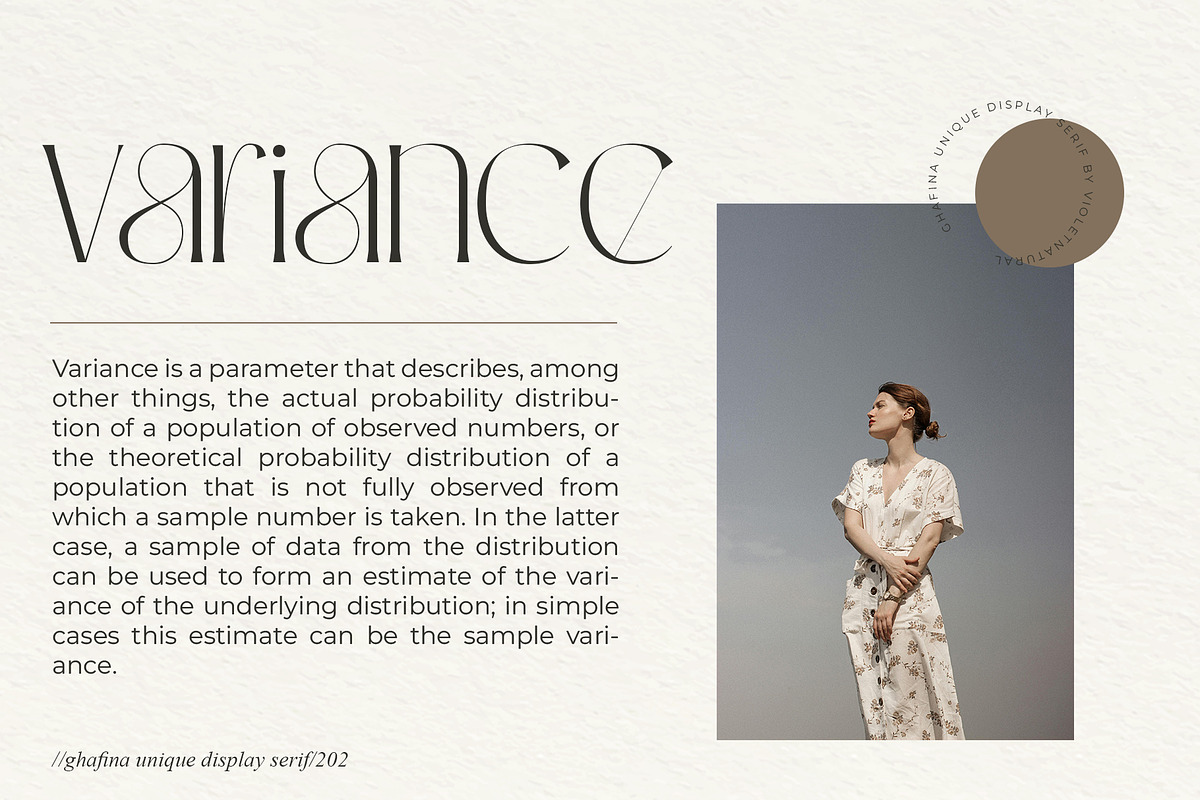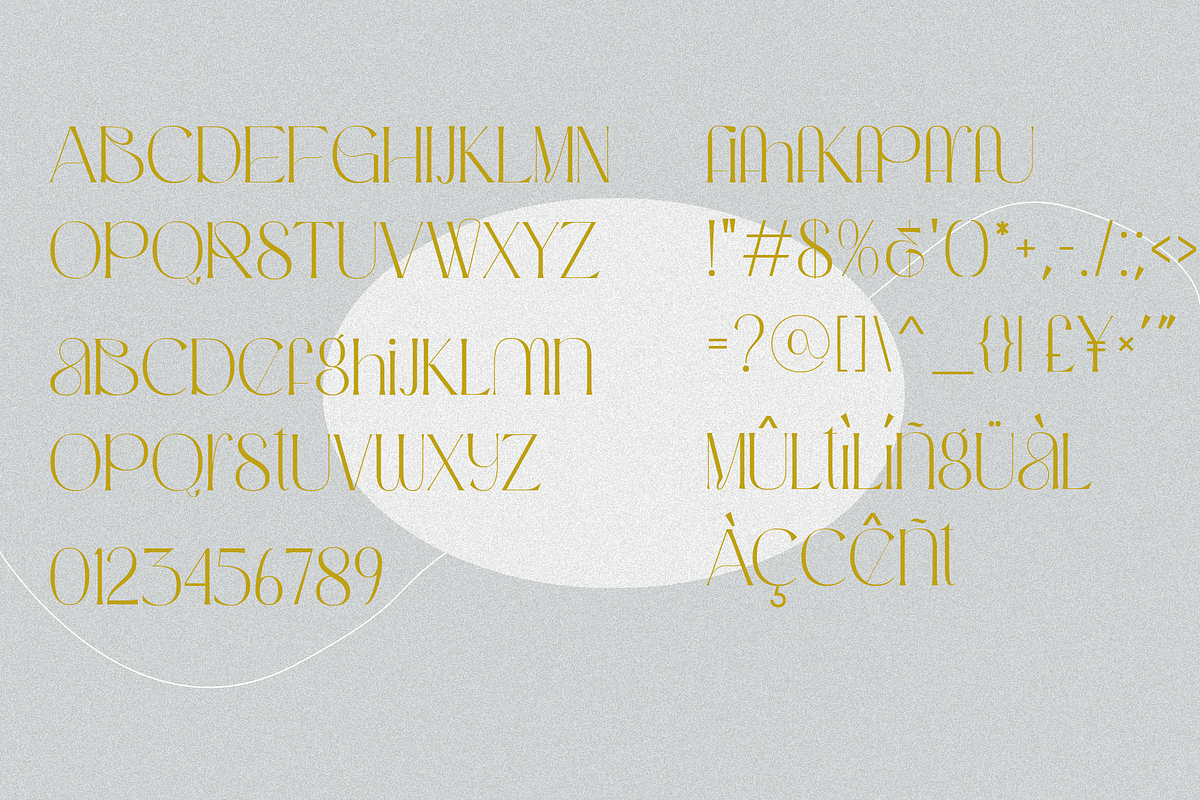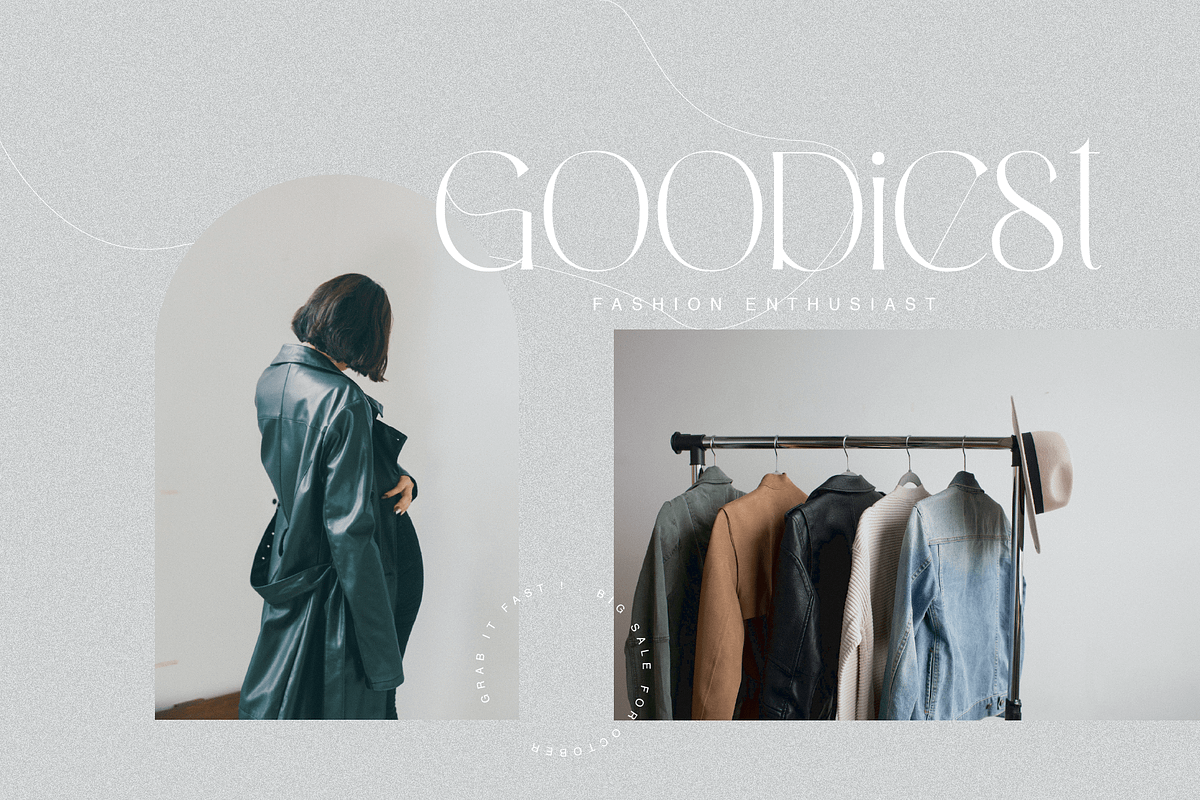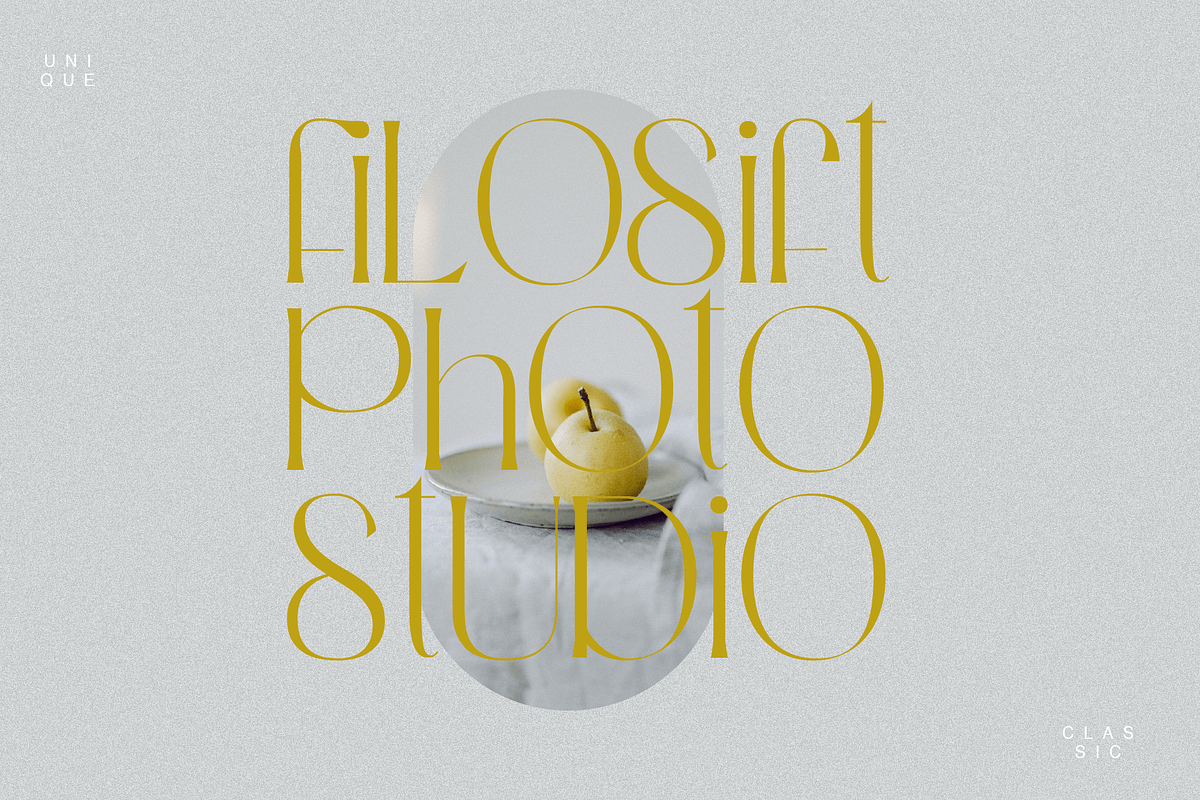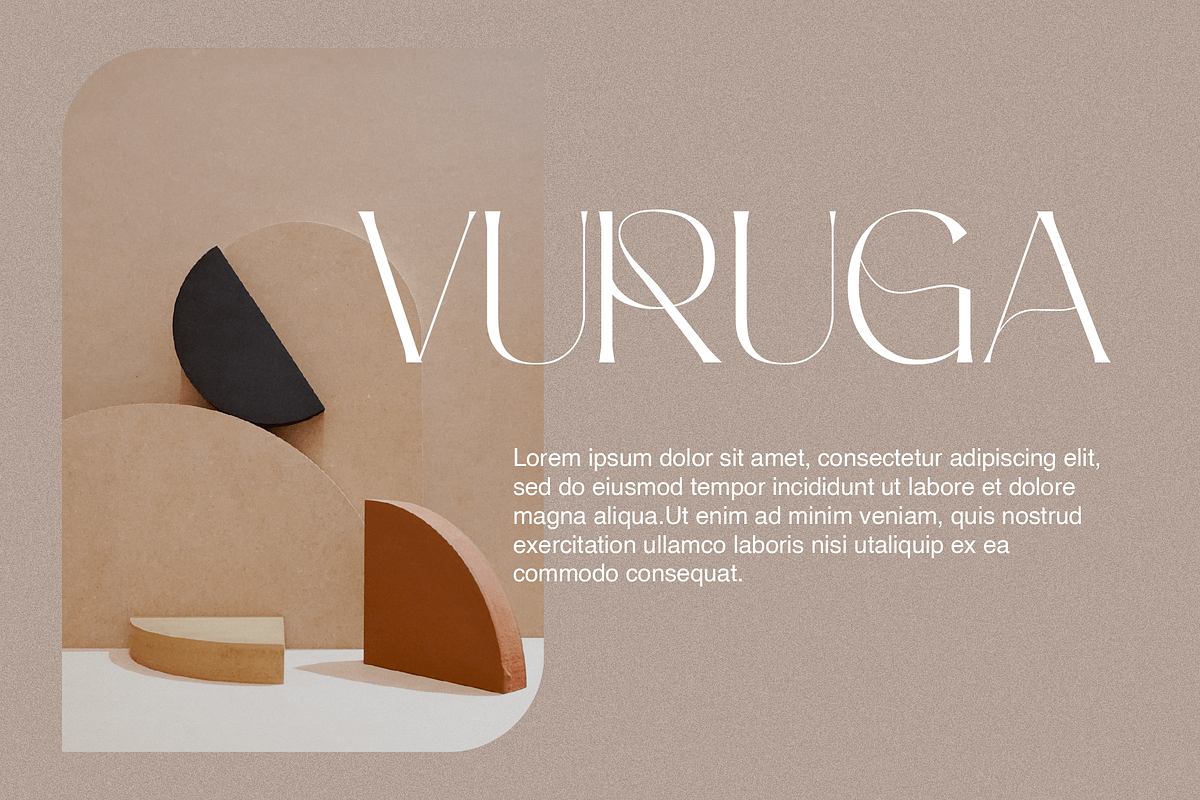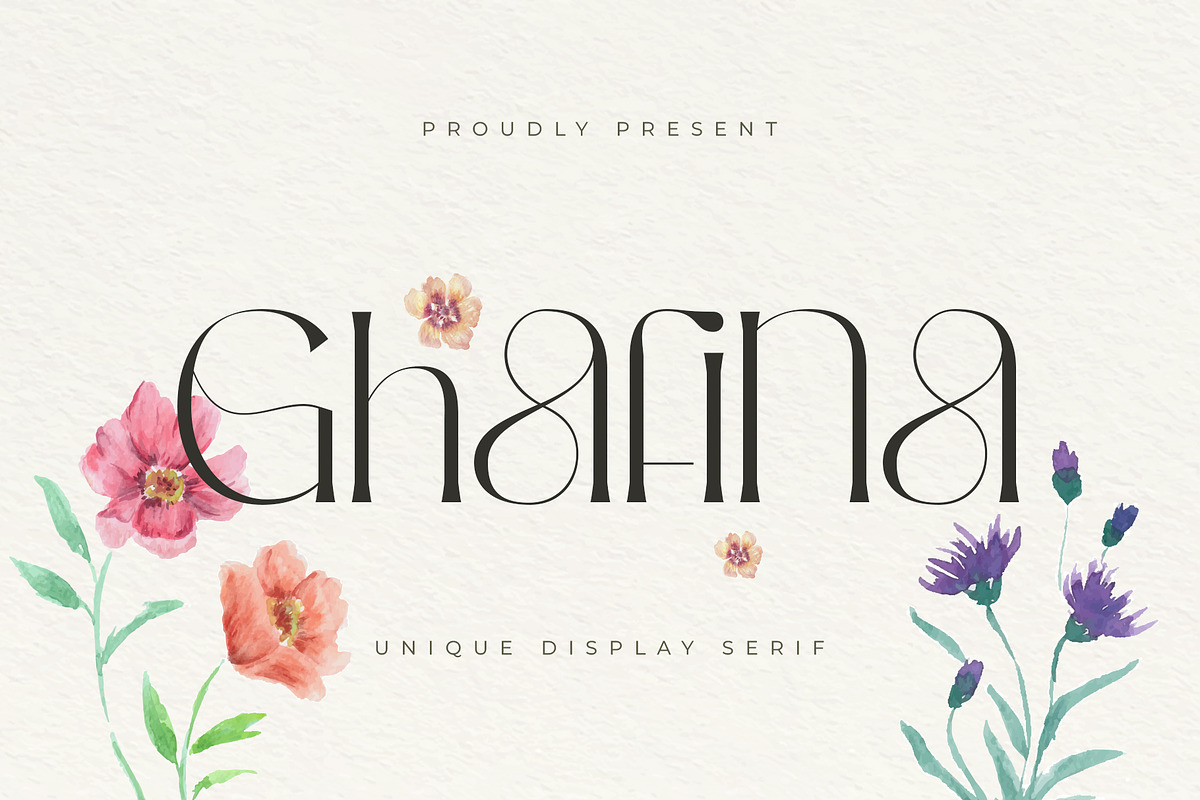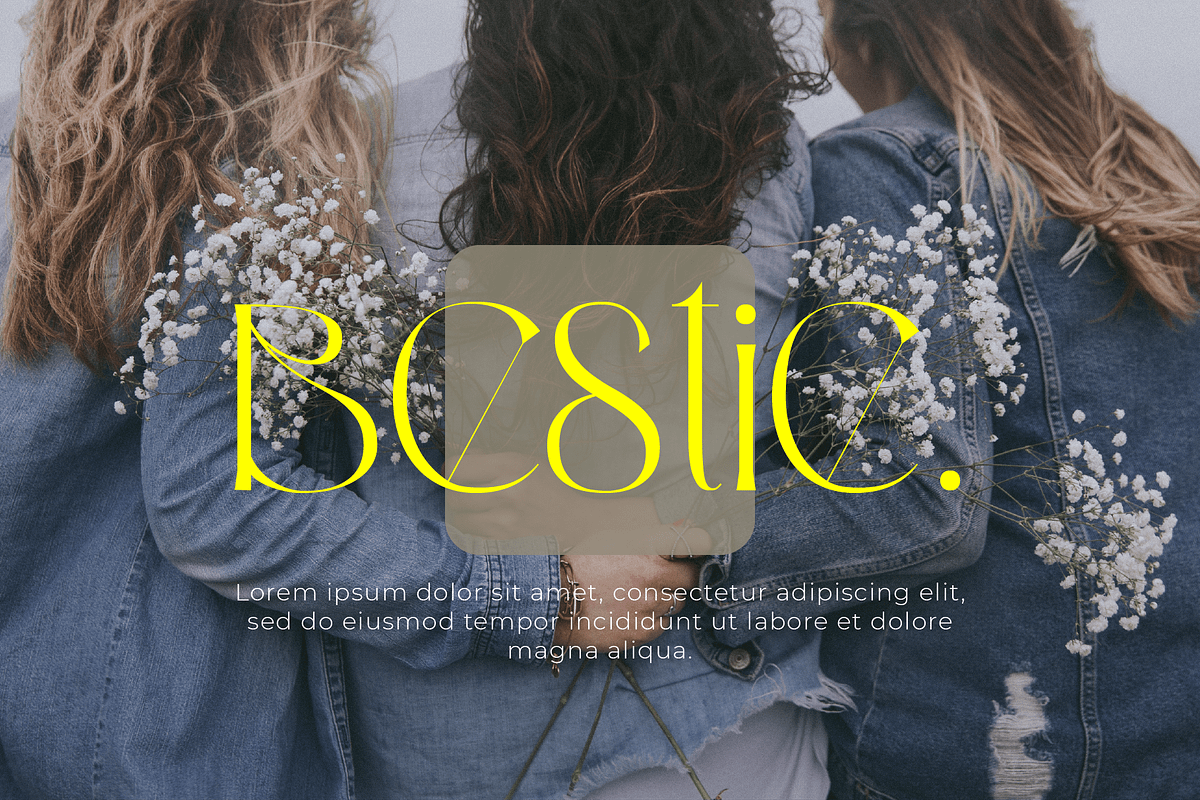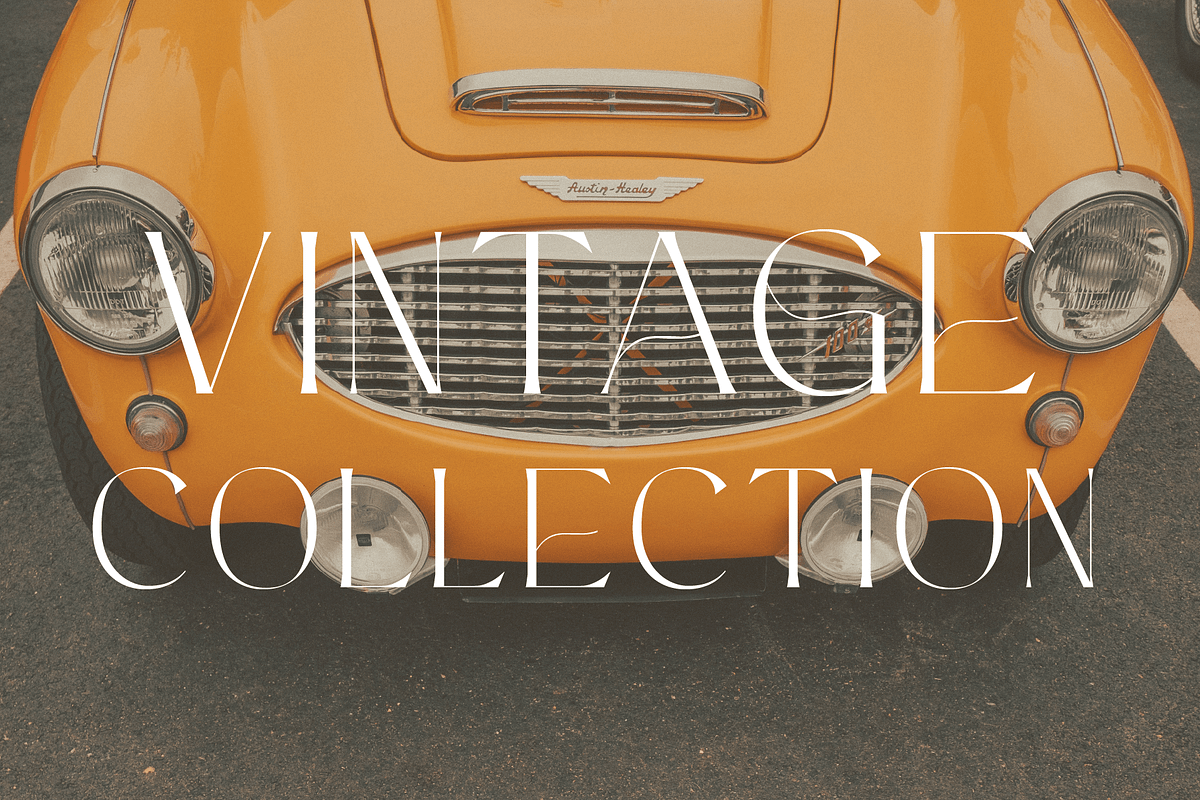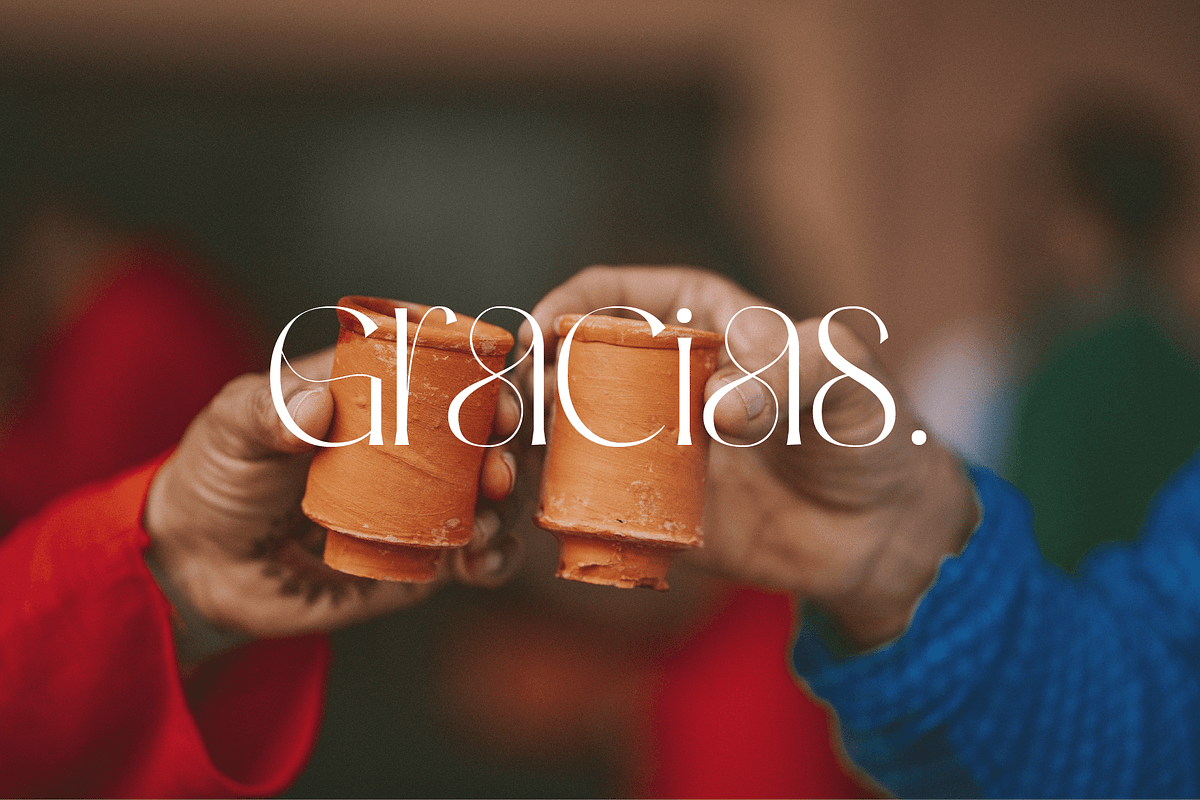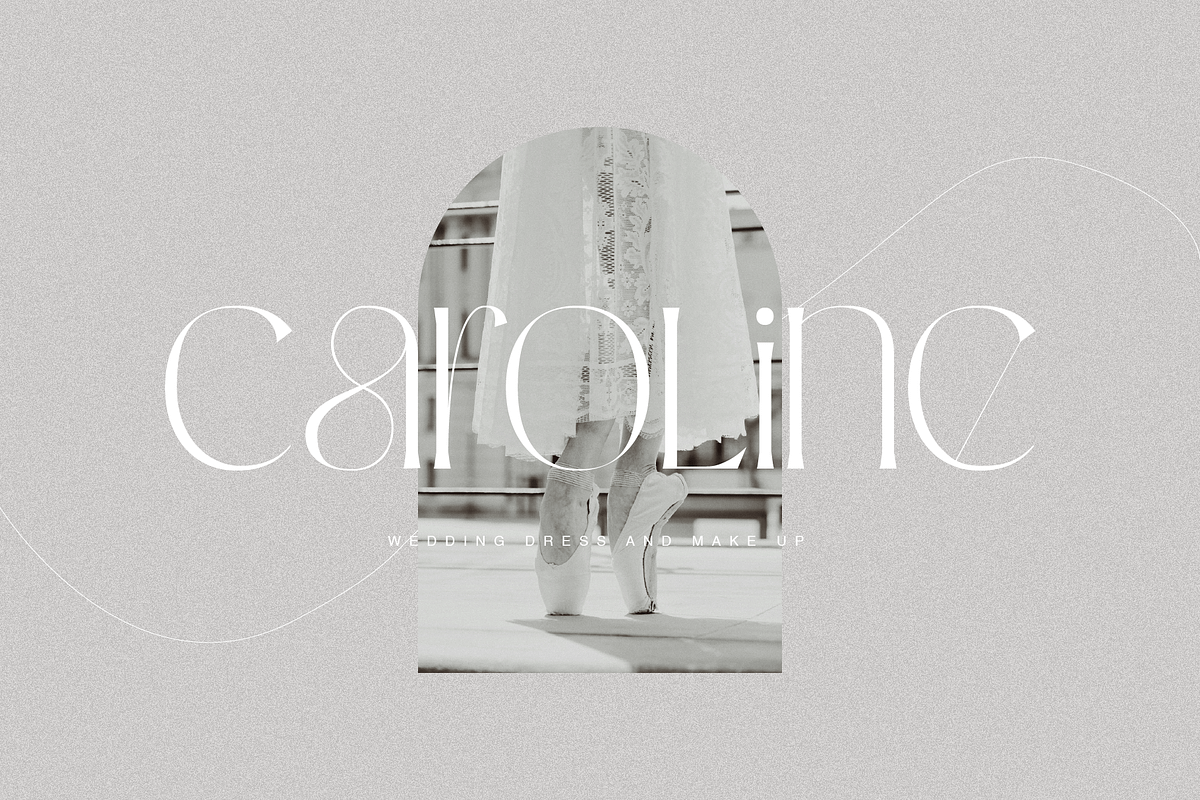
Ghafina Display Serif
Hey This new font is called Ghafina. This font is unique and thin and has a distinctive shape that is not found in other products. Ghafina wants to give an explorative impression and give freedom of form to every design that is created. By forming this font, it will add variation and more improvisation to the project that will be created. Thank You